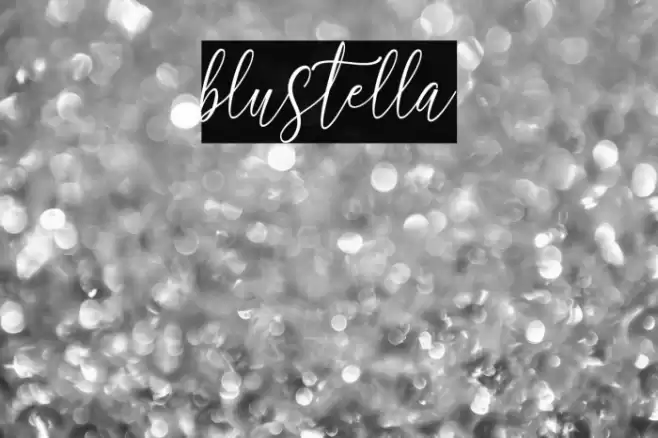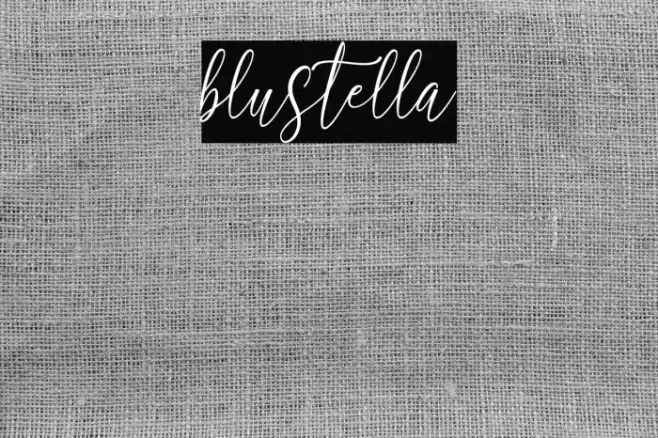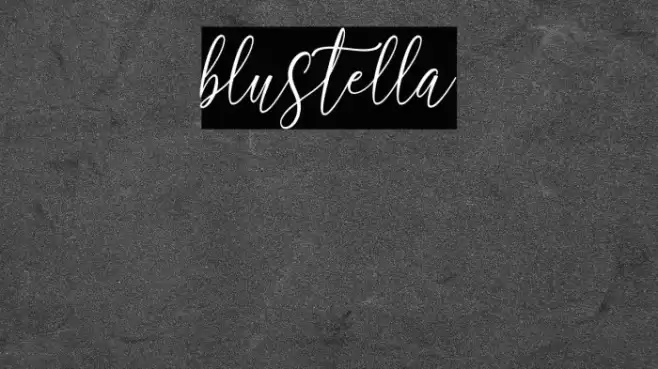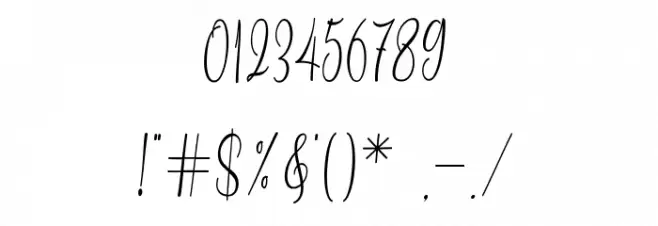
blustella Font
blustella Description
This elegant script font features flowing, cursive letters with a sophisticated flair. The uppercase letters are characterized by their sweeping curves and loops, giving a sense of movement and grace. The lowercase letters maintain a consistent style, with delicate strokes and a slight slant that enhances readability. Numbers and special characters are designed to complement the overall aesthetic, maintaining the same fluidity and charm. This font is ideal for projects that require a touch of elegance and sophistication, such as wedding invitations, branding, and high-end product packaging.
An elegant script font with flowing, cursive letters and sophisticated style from Regular fonts.
- Proposed Projects: Wedding invitations, branding, high-end product packaging, elegant stationery.
- Overall Style: Elegant
- Use Case: Logos, Invitations, Branding